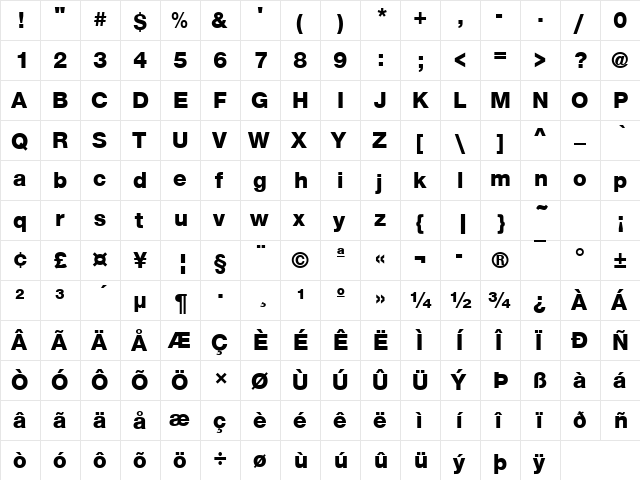
NimbusSanNovTHea Regular
Design Context for NimbusSanNovTHea Typeface
NimbusSanNovTHea is a composed and adaptable typeface that performs quietly and consistently across a wide range of design contexts.